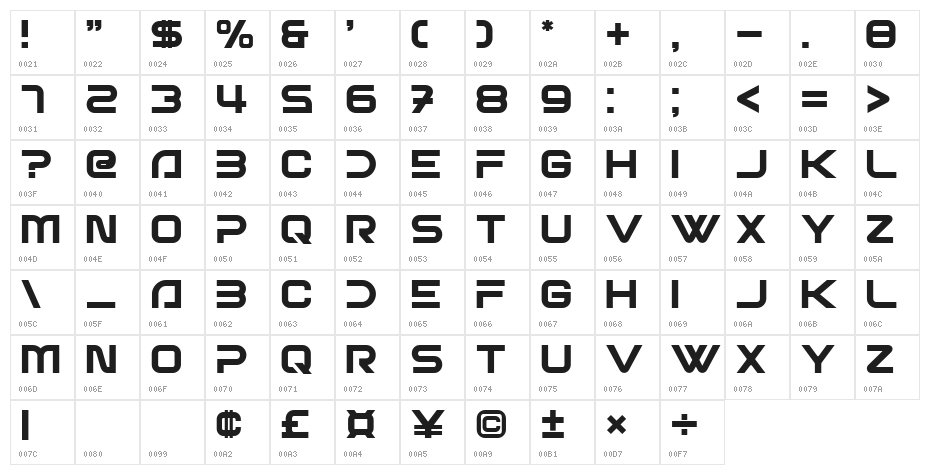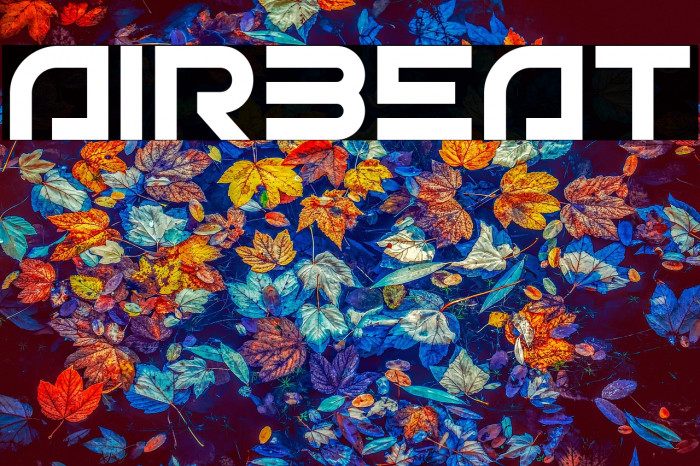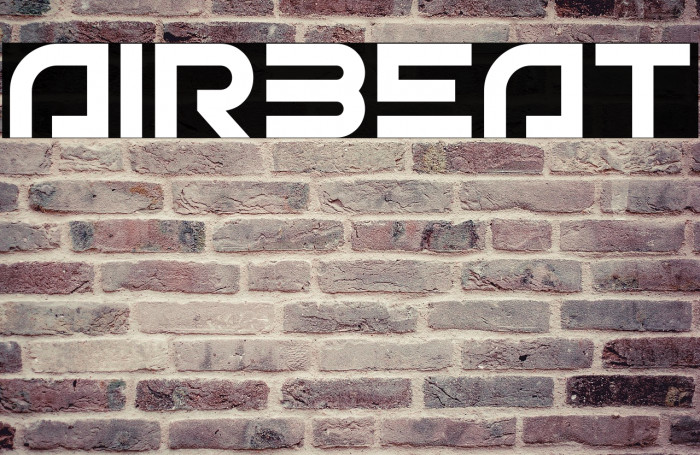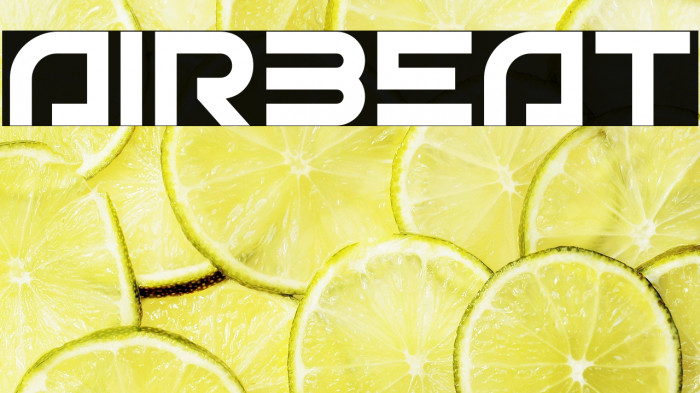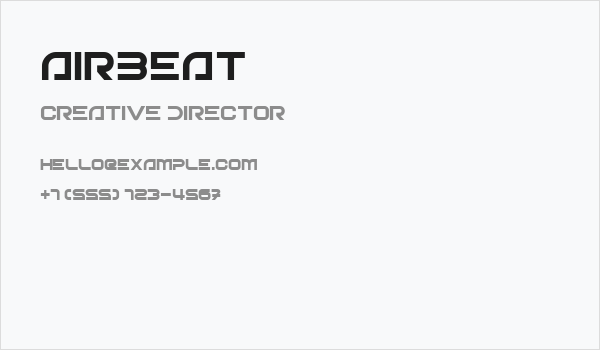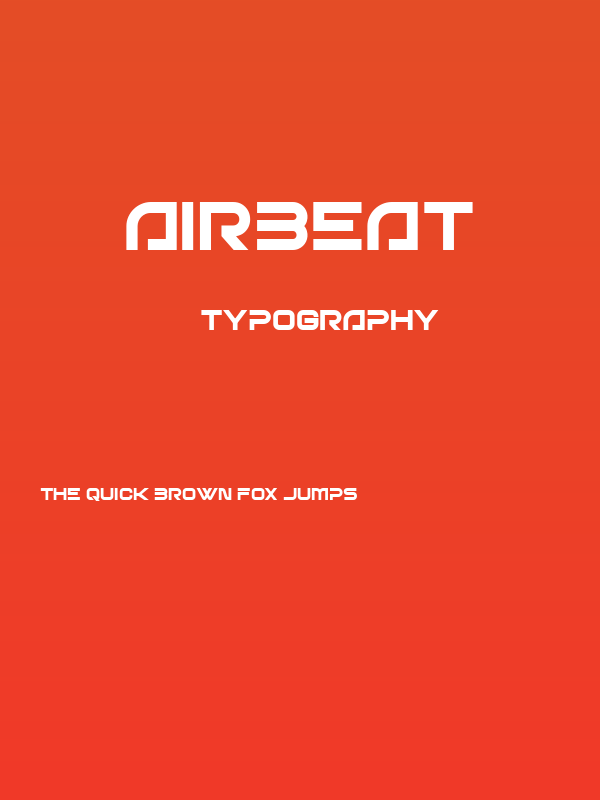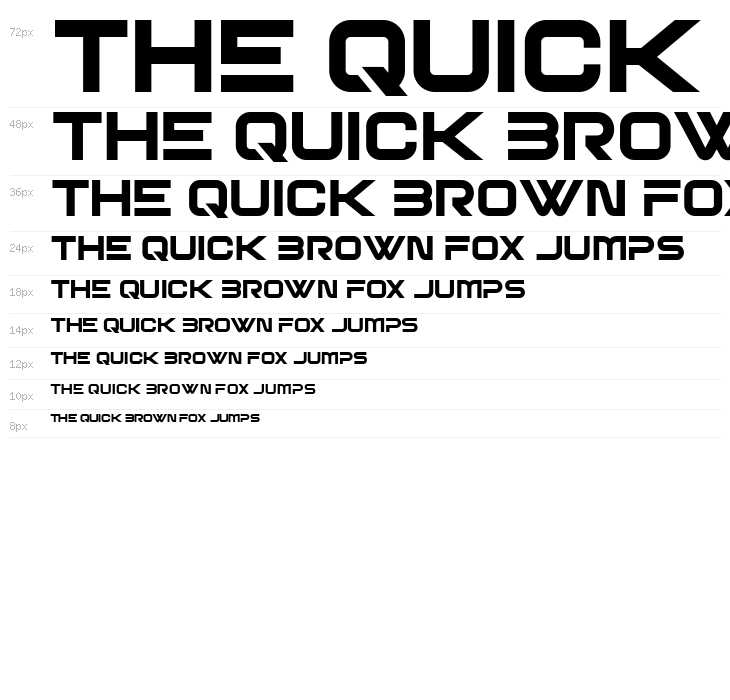
Airbeat Font
Airbeat Description
This font exhibits a bold and futuristic design, characterized by its geometric shapes and sharp angles. The letters are constructed with a combination of straight lines and curves, giving it a modern and dynamic appearance. The uppercase and lowercase letters maintain a consistent style, with a unique approach to certain characters like 'R' and 'Q' which feature distinctive cuts and angles. The numerals are equally bold, ensuring readability and consistency with the overall design. Special characters are designed to match the boldness and geometric nature of the alphabet, making this font suitable for a variety of creative applications.
| Proposed Projects | Ideal for technology branding, sci-fi themed projects, video game titles, and modern advertising. |